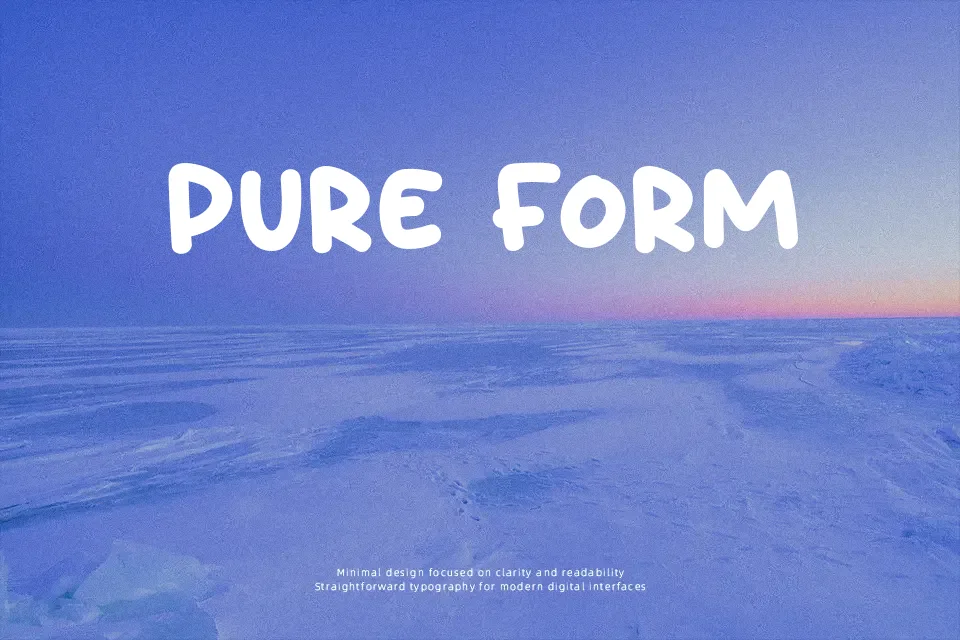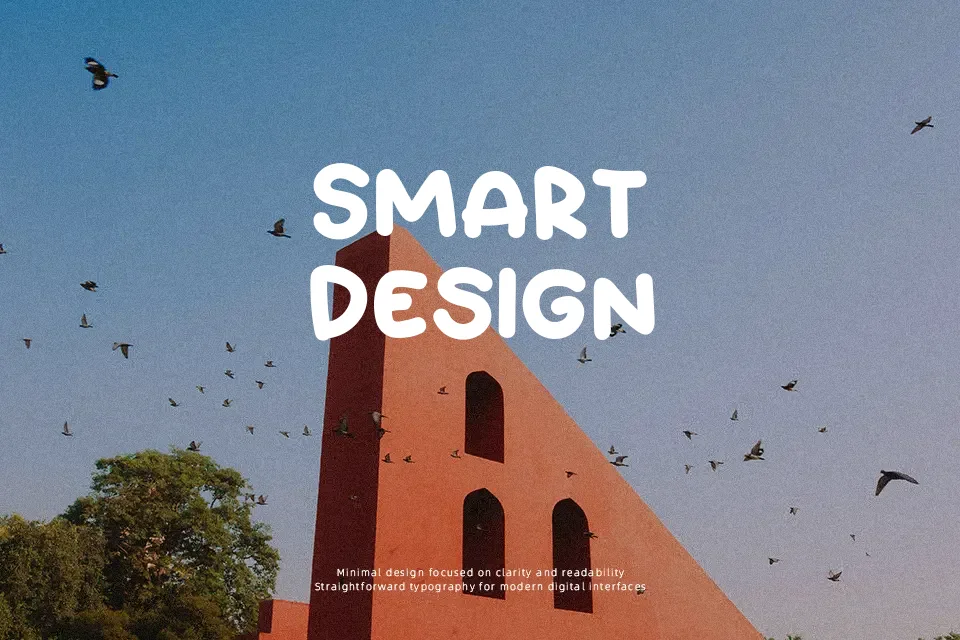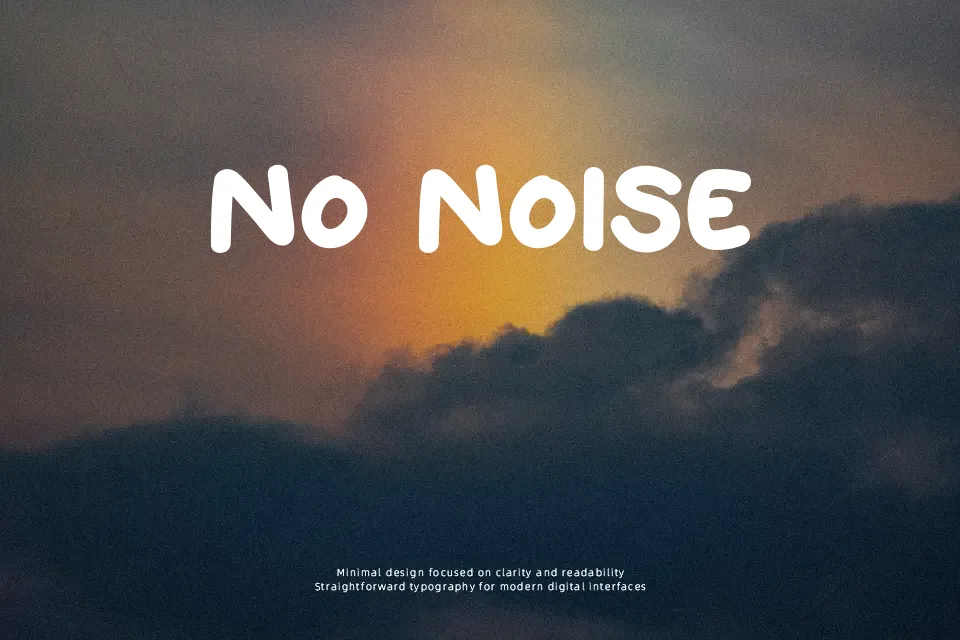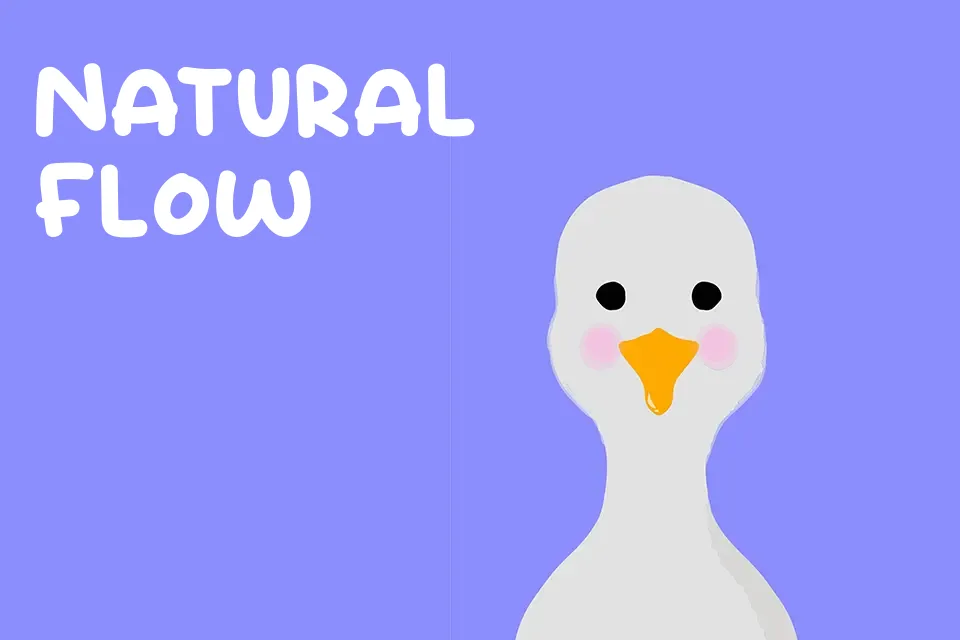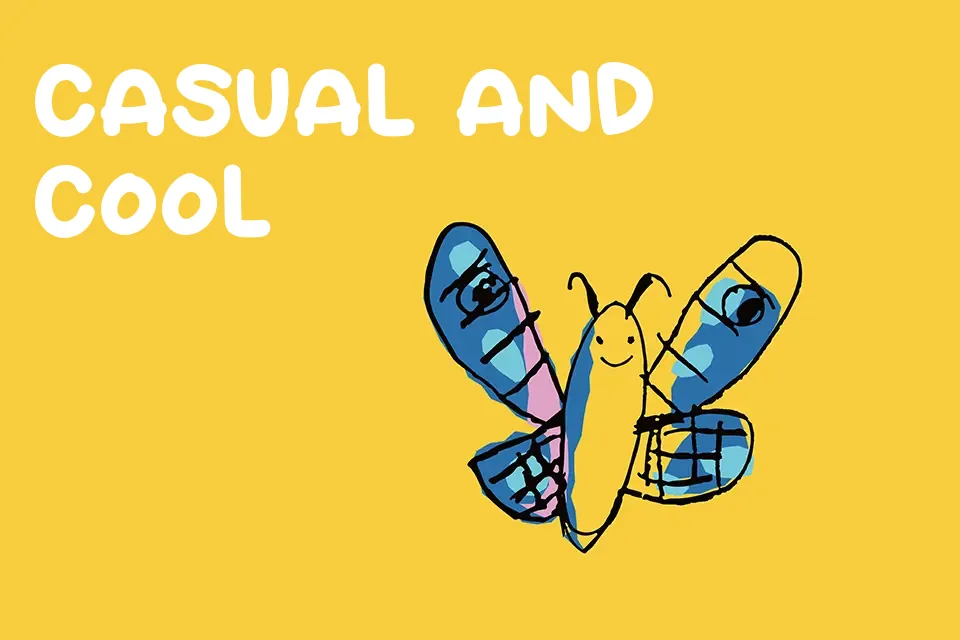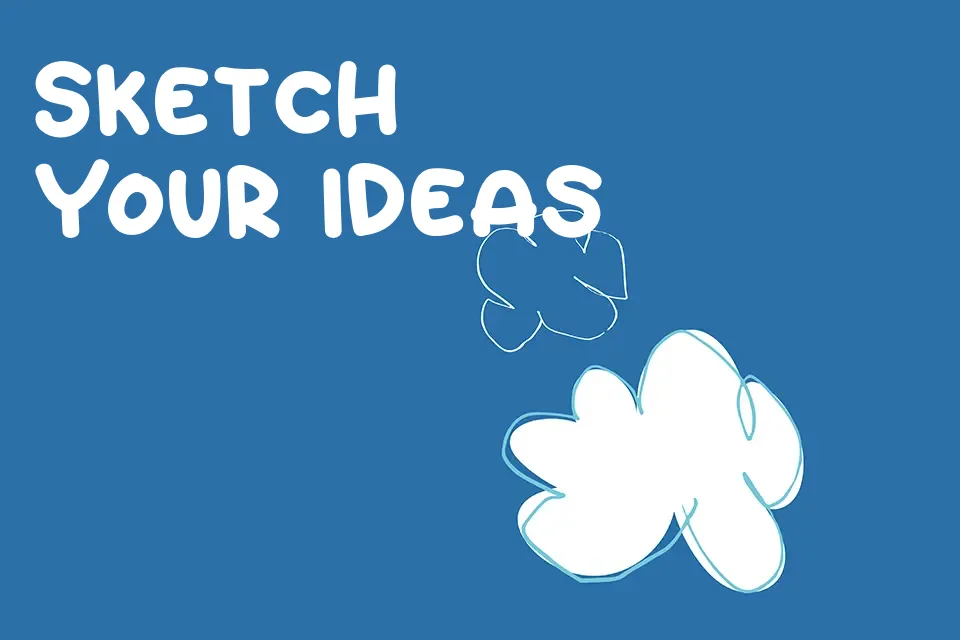
Kiwi Days Font
Designed by Khurasan™
Soft curves and slightly uneven strokes give Kiwi Days Font a relaxed handwritten feel, with open spacing that keeps words readable at larger sizes. The letterforms lean toward a casual, doodle-like structure, making it visually friendly rather than precise. It works nicely on greeting cards, playful branding, or Instagram quotes where personality matters more than strict alignment. However, the loose rhythm and informal construction can look messy in dense paragraphs or professional documents. It performs best in short bursts of text, especially when you want something lighthearted without going overly decorative.
– greeting card headlines
– kids-themed posters
– social media quote graphics
– casual brand logos
– long paragraph text
– corporate presentations
– formal editorial layouts
– small-size body copy
Perfect for kids, logo, and poster, with a creative and display style.